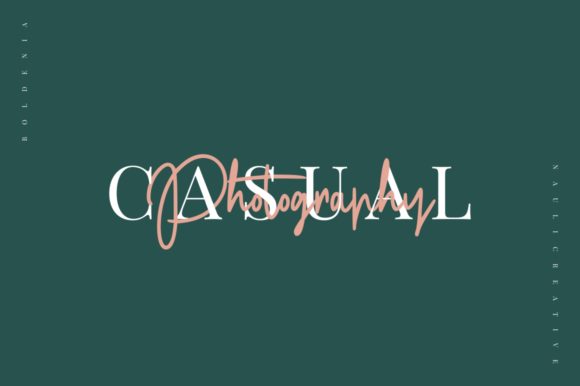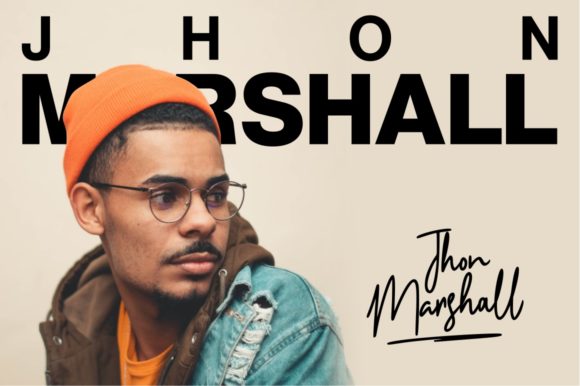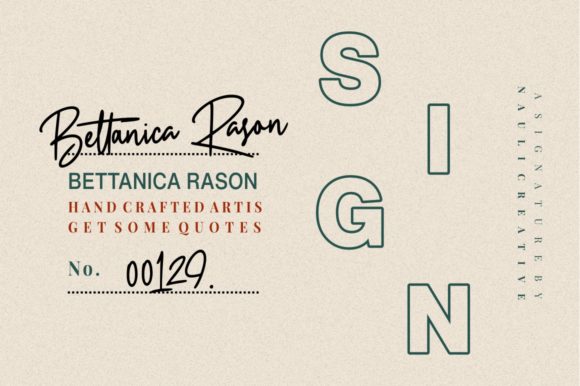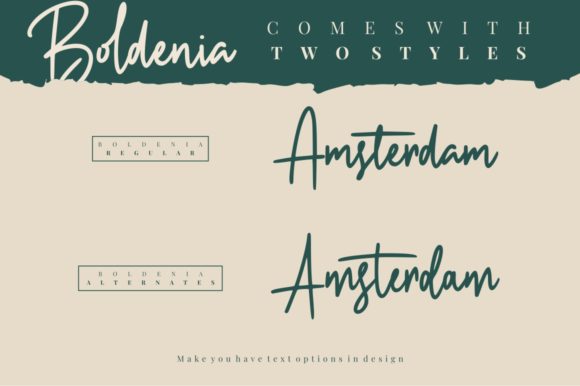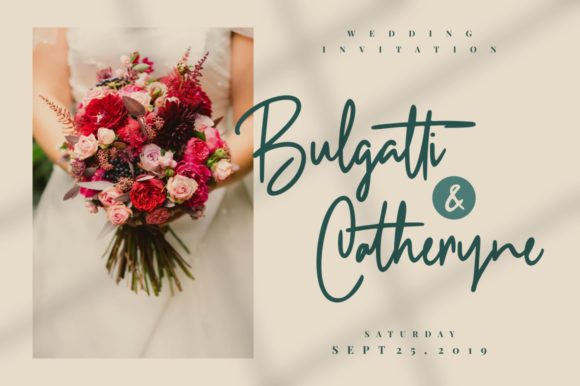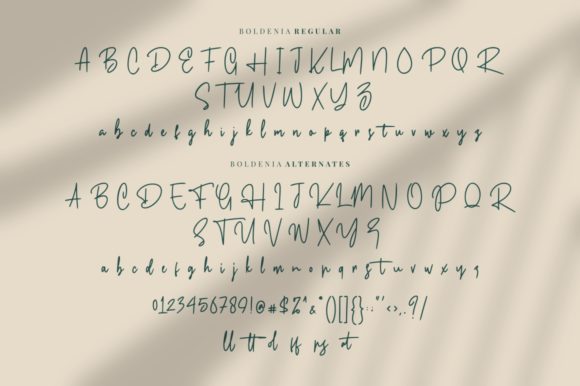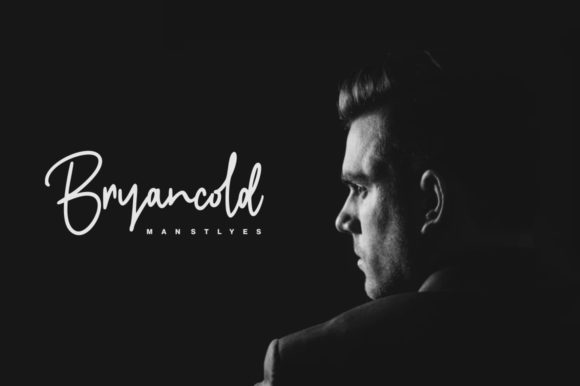
HomeScript FontsBoldenia Font Script Fonts Boldenia Font FacebookXPinterestWhatsApp Boldenia Font Poster 2 Boldenia Font Poster 3 Boldenia Font Poster 4 Boldenia Font Poster 5 Boldenia Font Poster 6 Boldenia Font Poster 7 Boldenia Font Poster 8 About Boldenia Font Boldenia is a gorgeous script with a light feel. Get inspired by its contemporary look! DOWNLOAD ON CREATIVE FABRICAThis font is sold and delivered by Creative Fabrica. Font Canyon may earn a commission if you buy through this link. People also explored Disamber Font Glorious Morning Font Paradise Font Informe Font Something Real Font Casttelo Signature Font Rockaway Beach Font Sillvestre Change Font 478 0 TagsBoldenia Font Previous articleCarlantans FontNext articleKurazan Font LEAVE A REPLY Cancel reply Comment: Please enter your comment! Name:* Please enter your name here Email:* You have entered an incorrect email address! Please enter your email address here Website: Save my name, email, and website in this browser for the next time I comment. Personal Use Free Aliqa Personal Use Free Read more about this font Cherry Ai Personal Use Free Read more about this font Calega Personal Use Free Read more about this font Jurnal Personal Use Free Read more about this font BLOG Exploring Font Trends Shaping Communication in the Digital Era Fonts, like all design elements, are subject to trends. They play a crucial role in communicating a brand's personality,... How to Cut Any Font on Cricut: Convert a Font to SVG (Free) Where to Buy American Fonts Online in 2024 How to Install and Use Fonts on Windows, macOS, and Web Projects